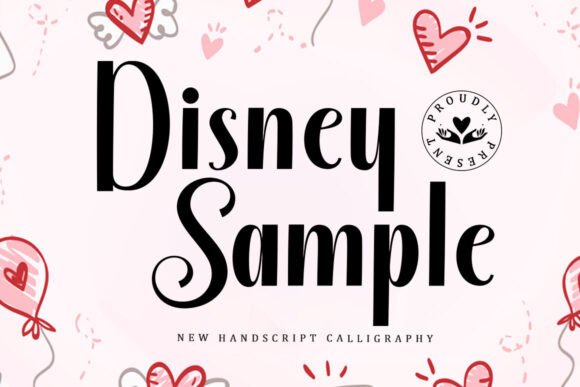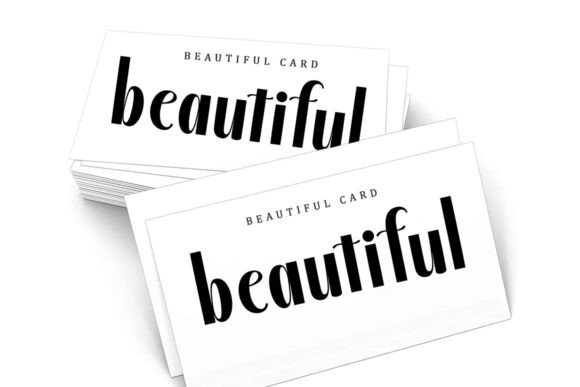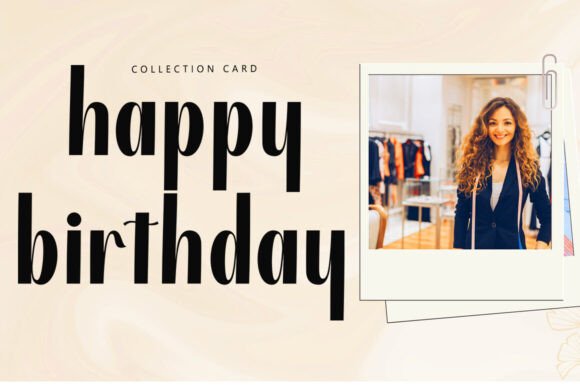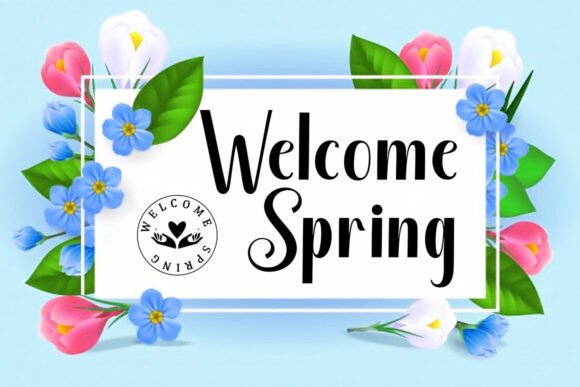
Disney Sample Font
About the Disney Sample Font
Let us introduce you to Disney Sample Font, where timeless design meets modern craftsmanship. Disney Sample is an elegant script font with a contemporary atmosphere and impeccable form, inspired by timeless classic calligraphy. Not too thin and not too thick, balanced and varied, this font was designed to enhance the beauty of your projects.
Disney Sample Font excels in applications requiring a touch of refined elegance, such as wedding invitations, logos for luxury brands, or short-form marketing materials. Its graceful curves and balanced strokes make it ideal for headlines, short quotes, and signature elements. However, its script nature makes it less suitable for body text or UI elements where readability is paramount. Extended use could hinder legibility.
Pairing Disney Sample with a clean sans-serif like Open Sans or Lato for body text creates a strong contrast and excellent visual hierarchy. For a more traditional feel, a classic serif font such as Garamond or Times New Roman would complement its timeless elegance. Avoid pairing it with other highly decorative or overly playful fonts, which might clash with its sophisticated character.
The overall personality of Disney Sample is sophisticated and refined, yet approachable. Its elegant curves convey a sense of classic charm without appearing overly fussy or dated. This makes it a versatile choice for brands seeking to project an image of quality and timeless style.
Disney Sample Font Usage Examples
Disney Sample Font Example